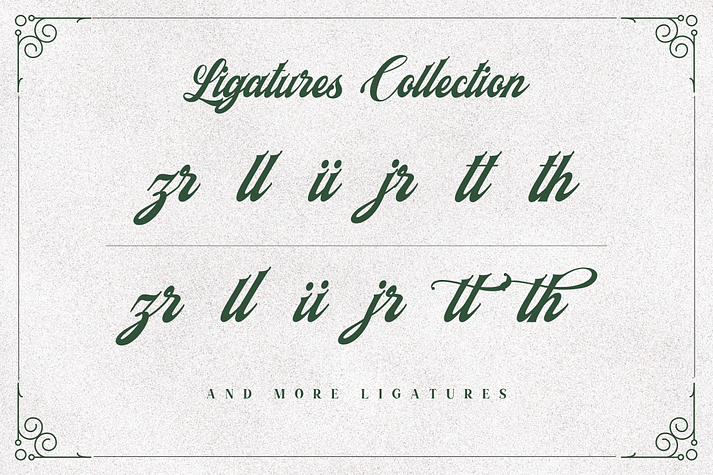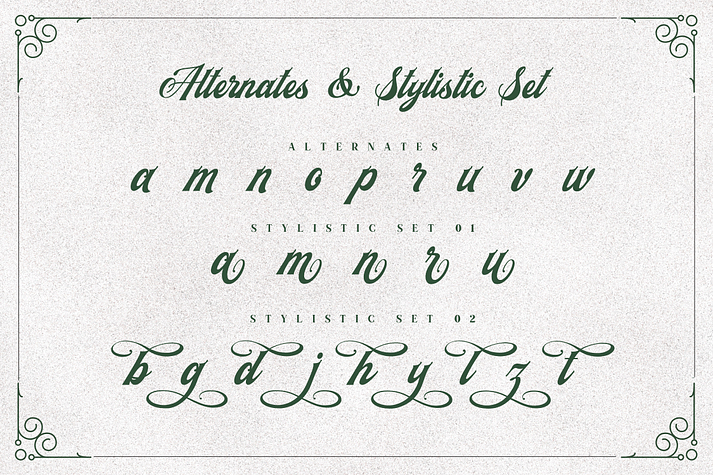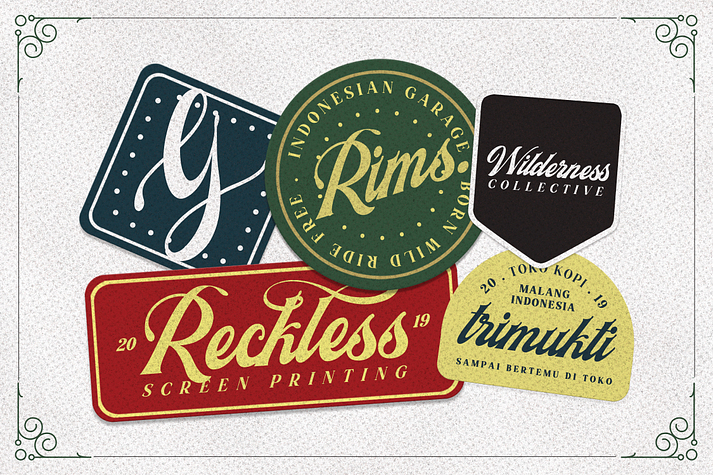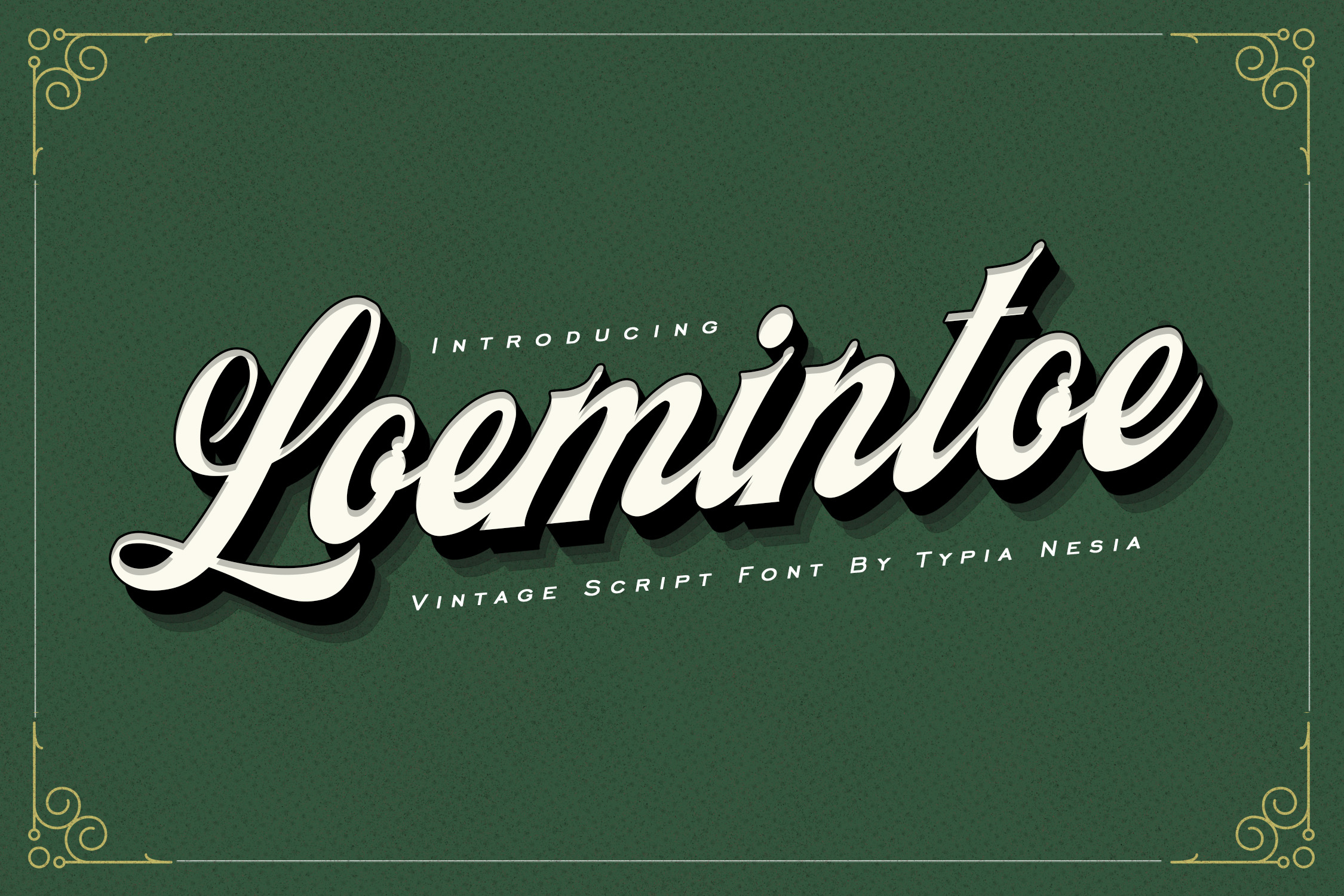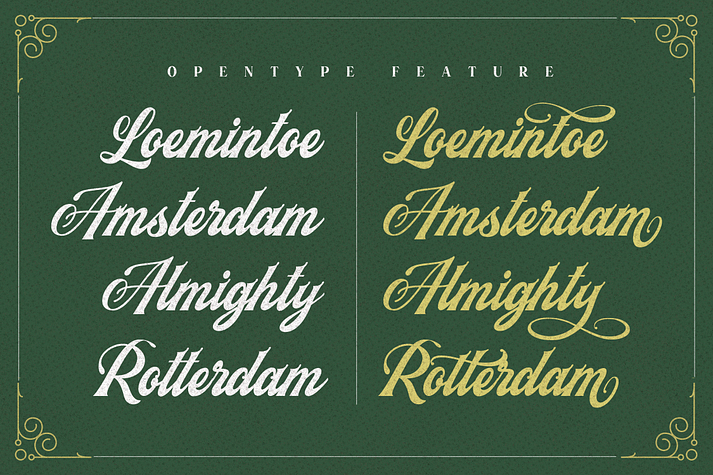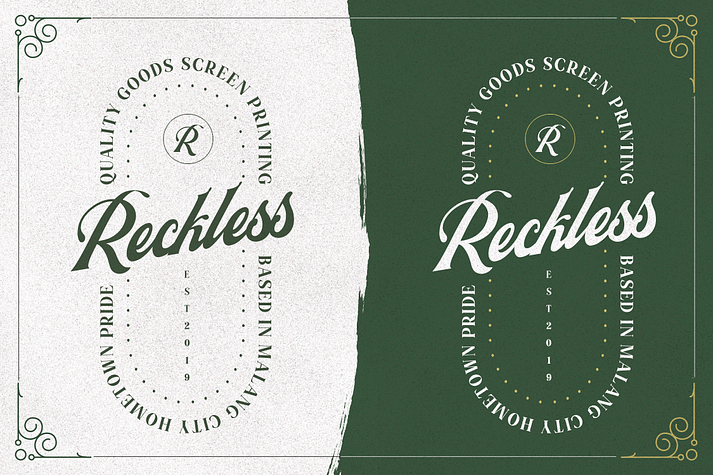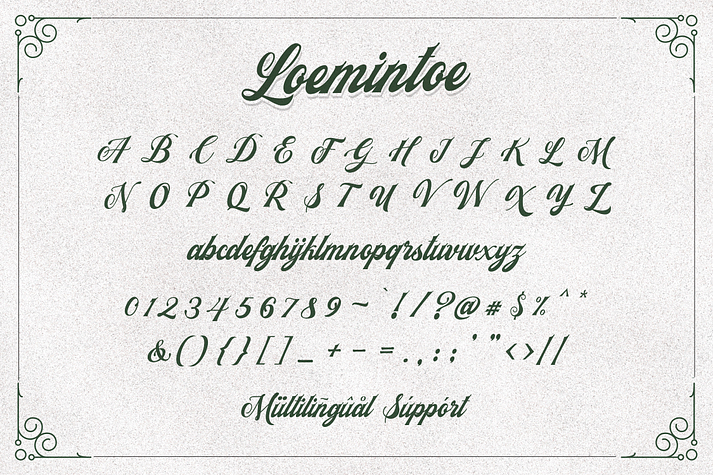
Loemintoe
Loemintoe is a font family published by Typia Nesia.
Loemintoe is Vintage Classic Script Font inspired by vintage sign painting and vintage poster.
The perfect flow and easy vintage script style works perfectly on t-shirt, poster, card, branding, art quote, book / cover Title, and so much more!
Loemintoe font comes with upper and lowercase Standard Characters, Punctuation, Numerals. And other Glyphs variation of the OpenType features such as Standard Ligature, Stylistic Alternate and Stylistic Sets.
Includes a range of multilingual support.